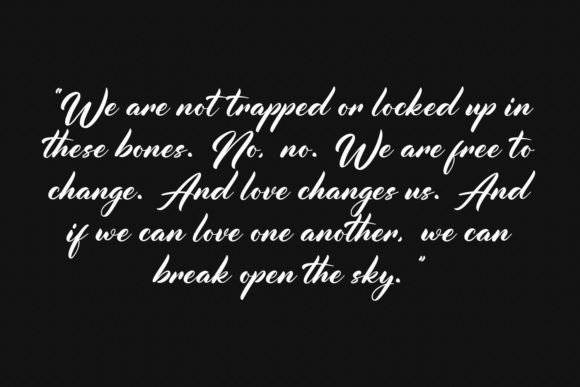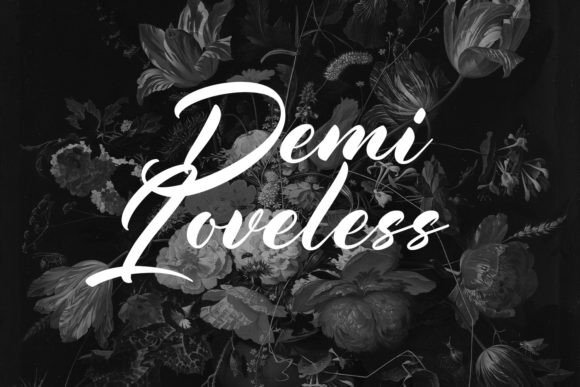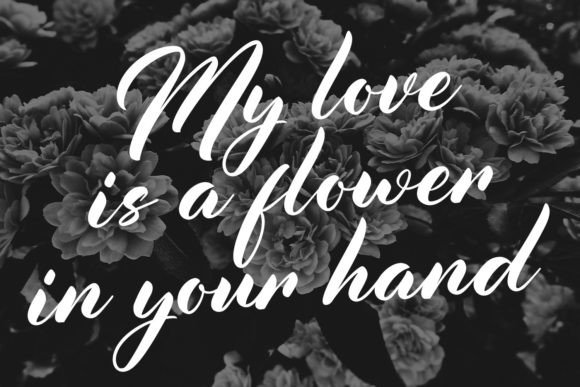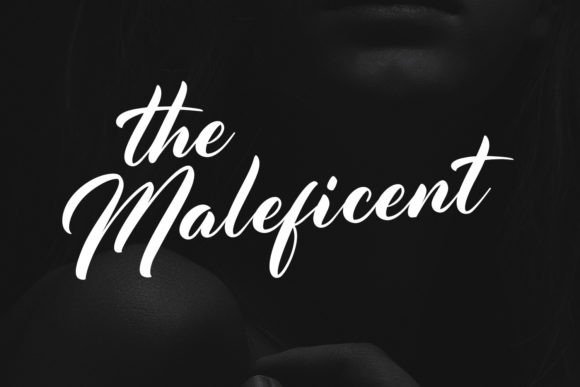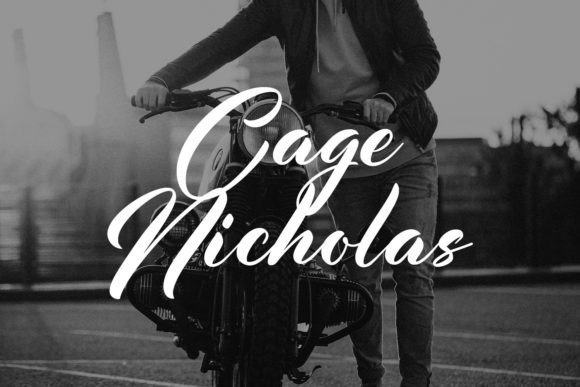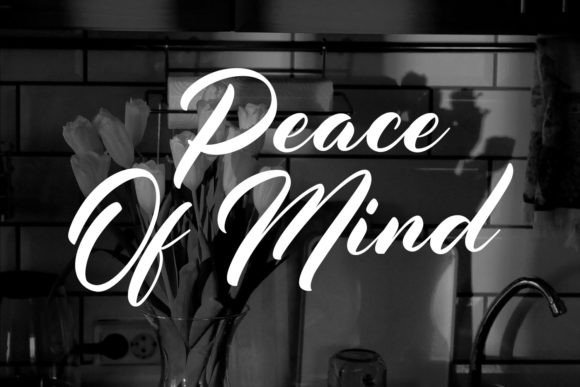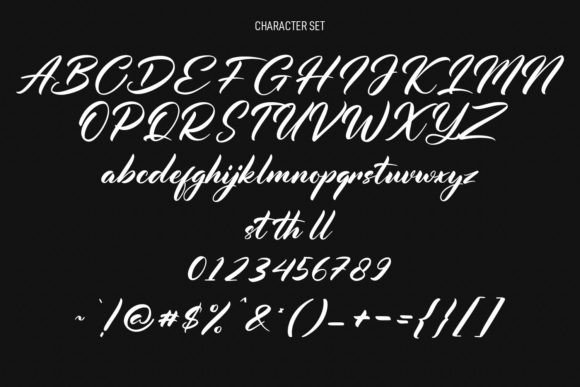
Gray Hopes Font
About Gray Hopes Font
Gray Hopes is a modern and neat handwritten script font. No matter the topic, this font will be an incredible asset to your fonts’ library, as it has the potential to elevate any creation.